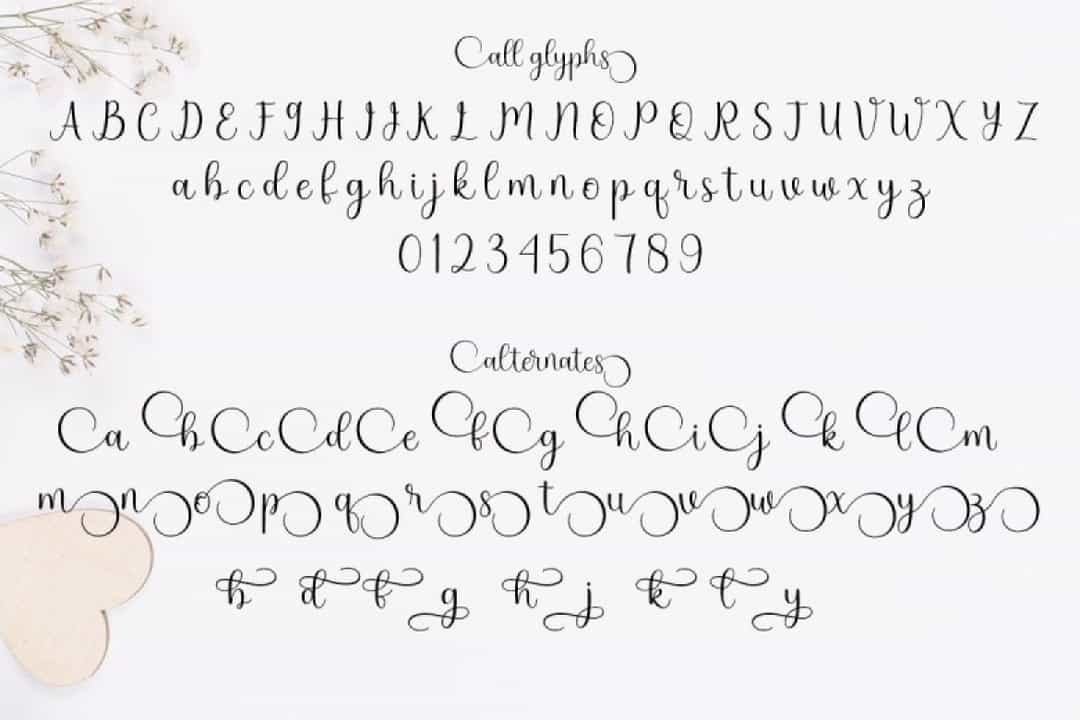
Discover Mulidey Font, part of the Calligraphy collection—a versatile and unique font perfect for adding a personal touch to your projects. Download it for free and enjoy crafting designs with style, from invitations to social media posts. This font is available exclusively for personal use, giving you the freedom to create without limits. Unlock your creativity with Mulidey Font today!
Mulidey Calligraphy Script Font features over 200 glyphs that can be divided into various Open Type features like Swash, Stylistic Sets, Stylistic Alternates and Contextual Alternates. All of these features can be easily accessed using Open Type-aware programs such as Adobe Illustrator, InDesign and Photoshop as well as Corel Draw X version and Microsoft Word.